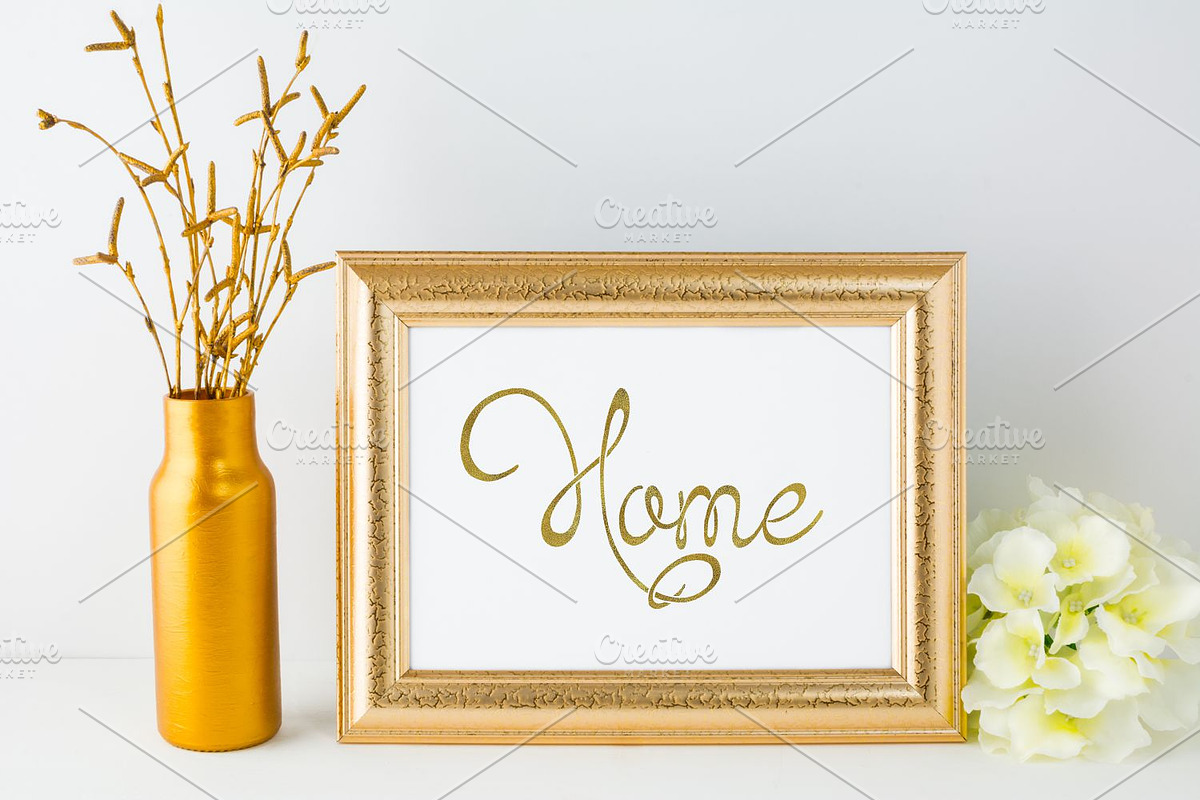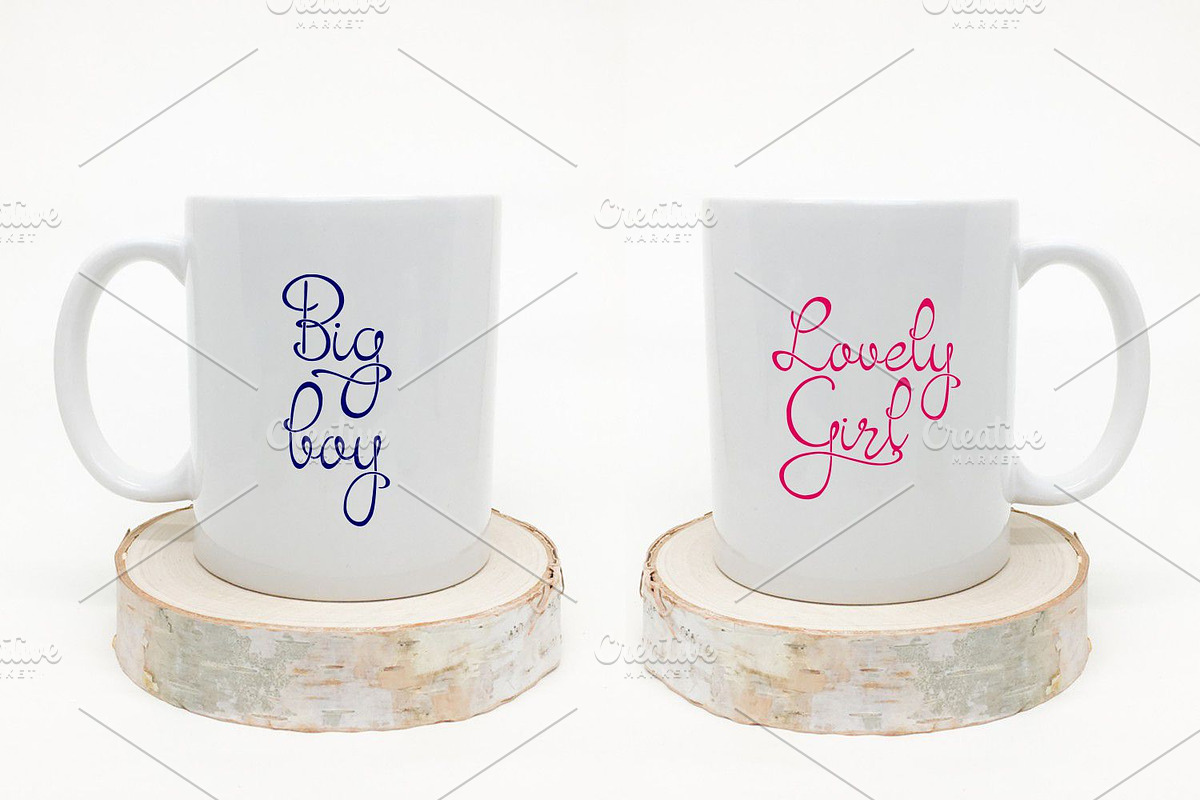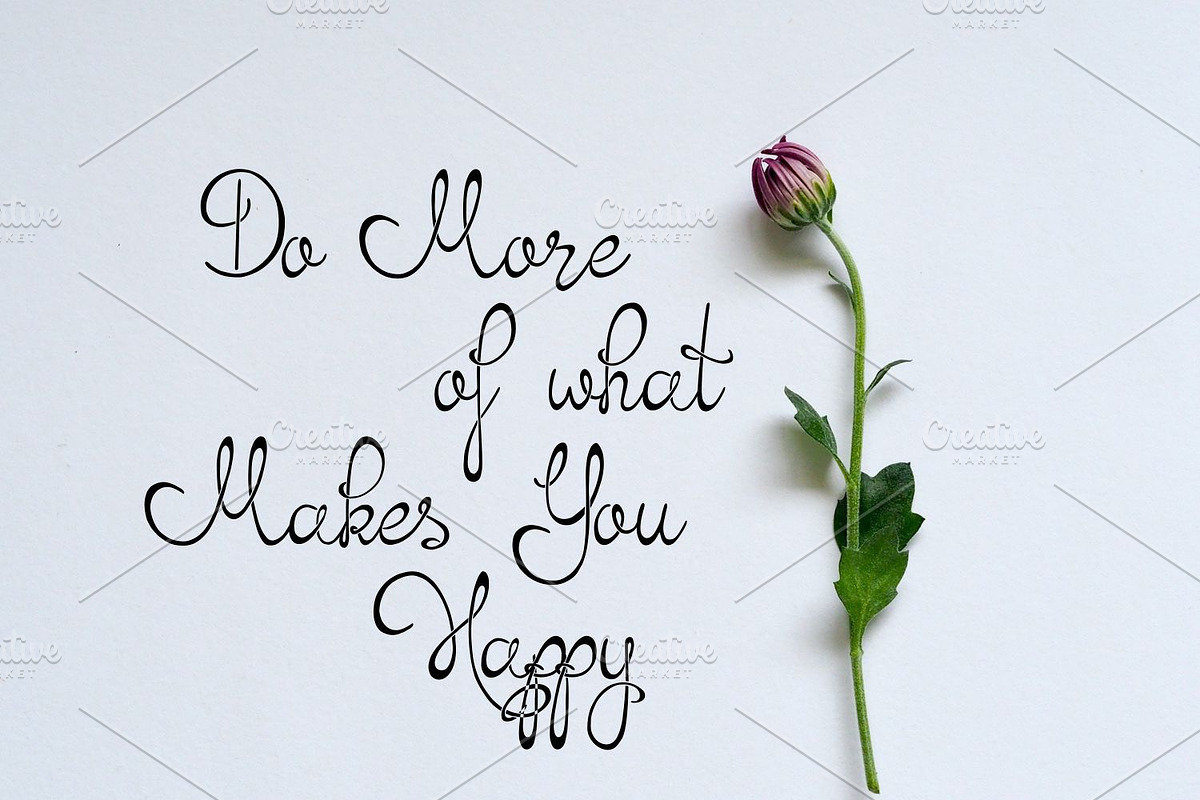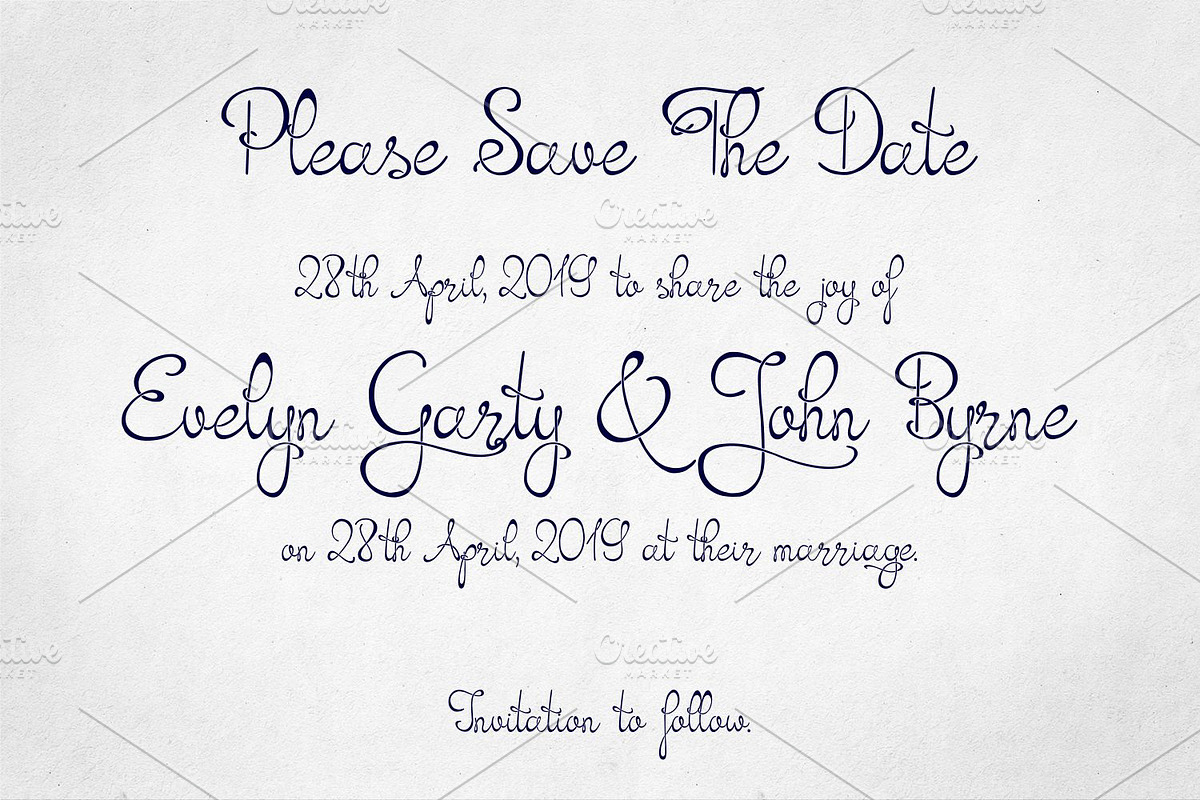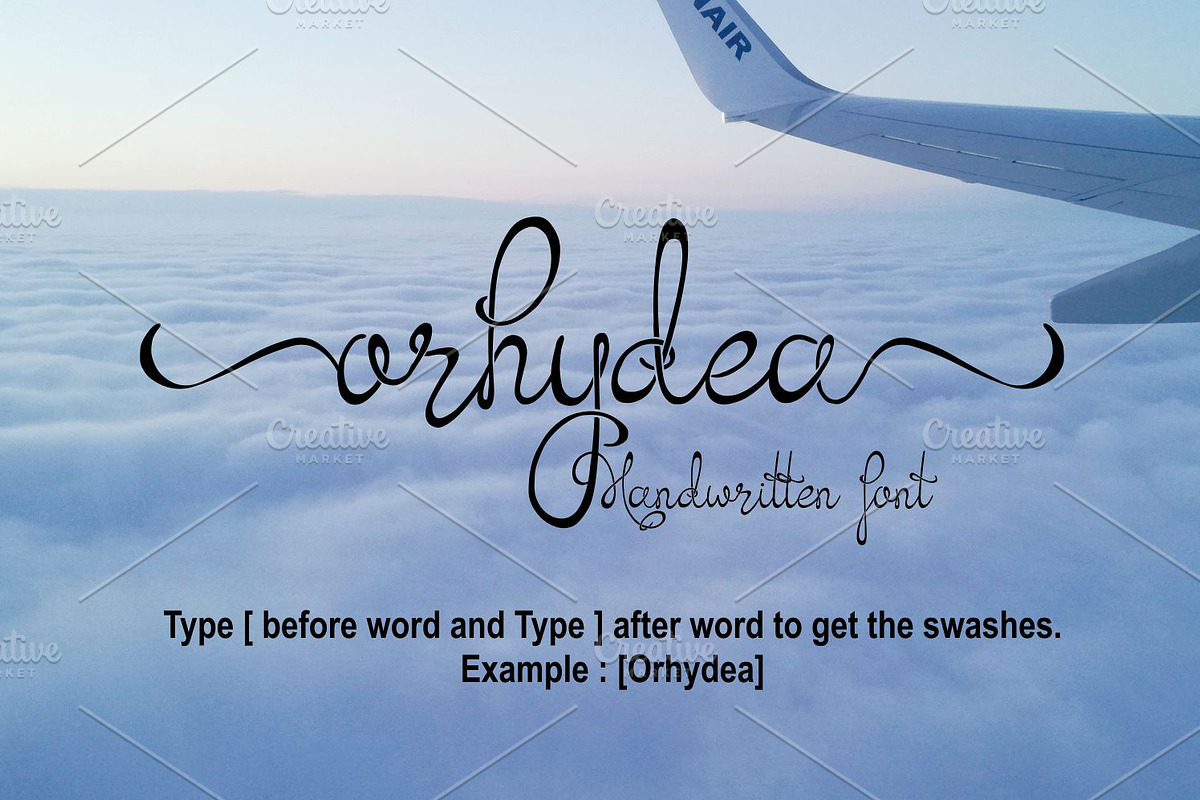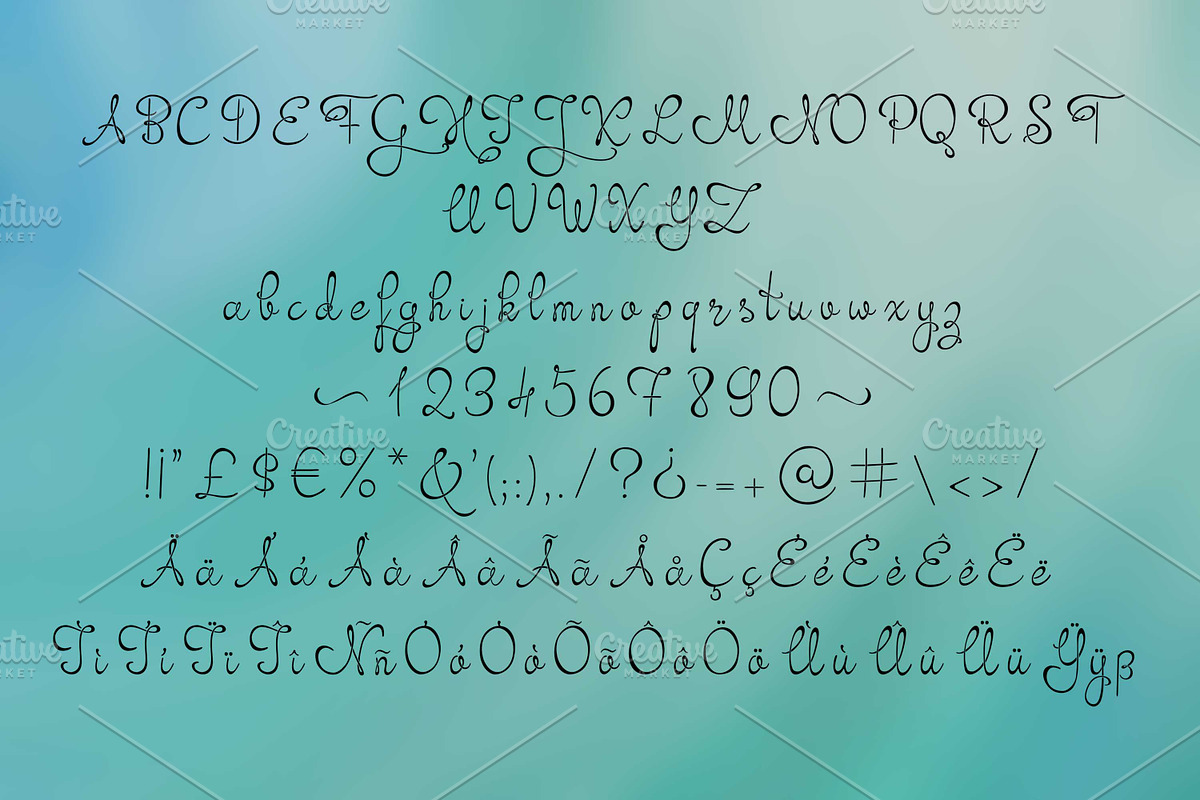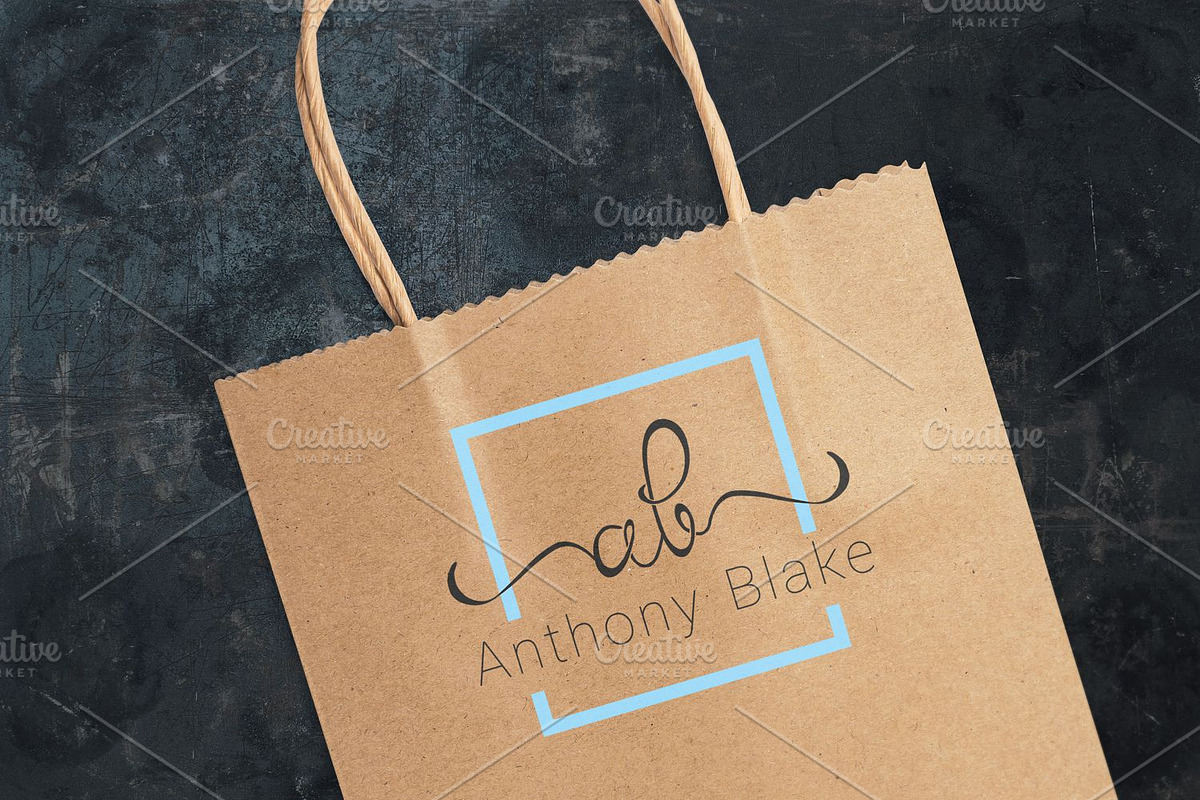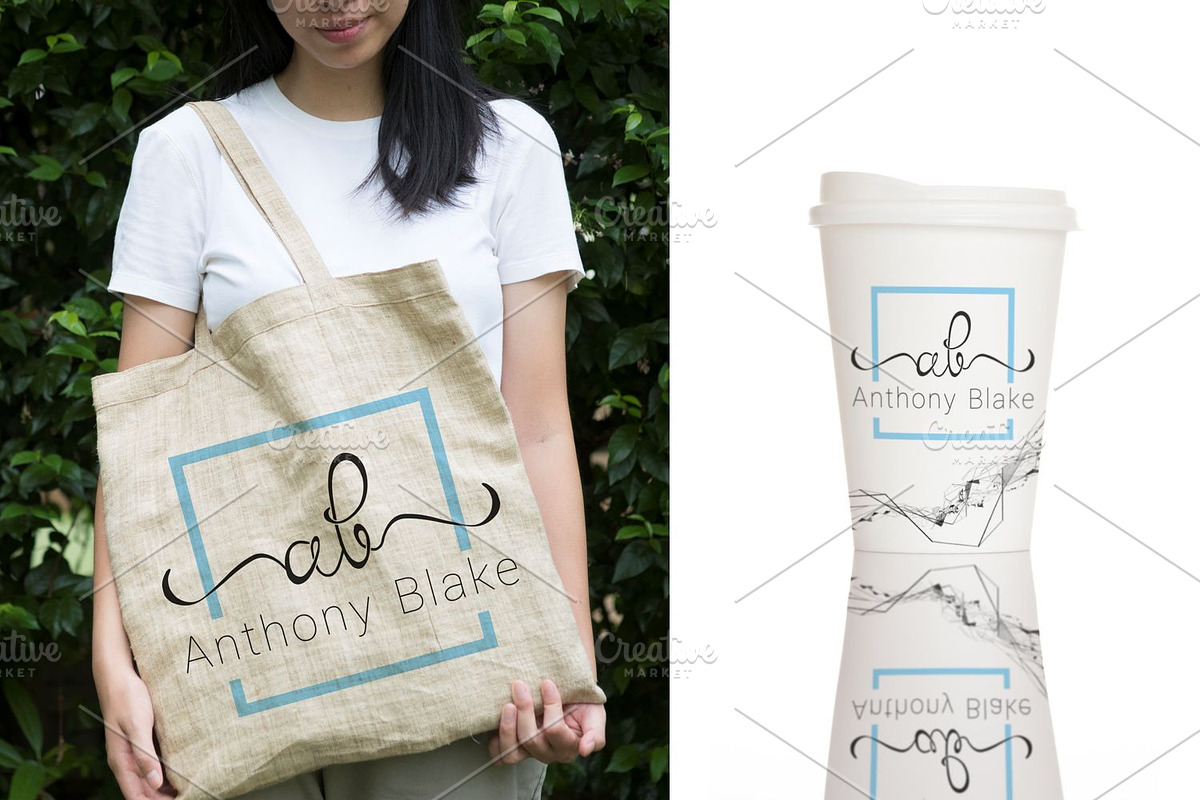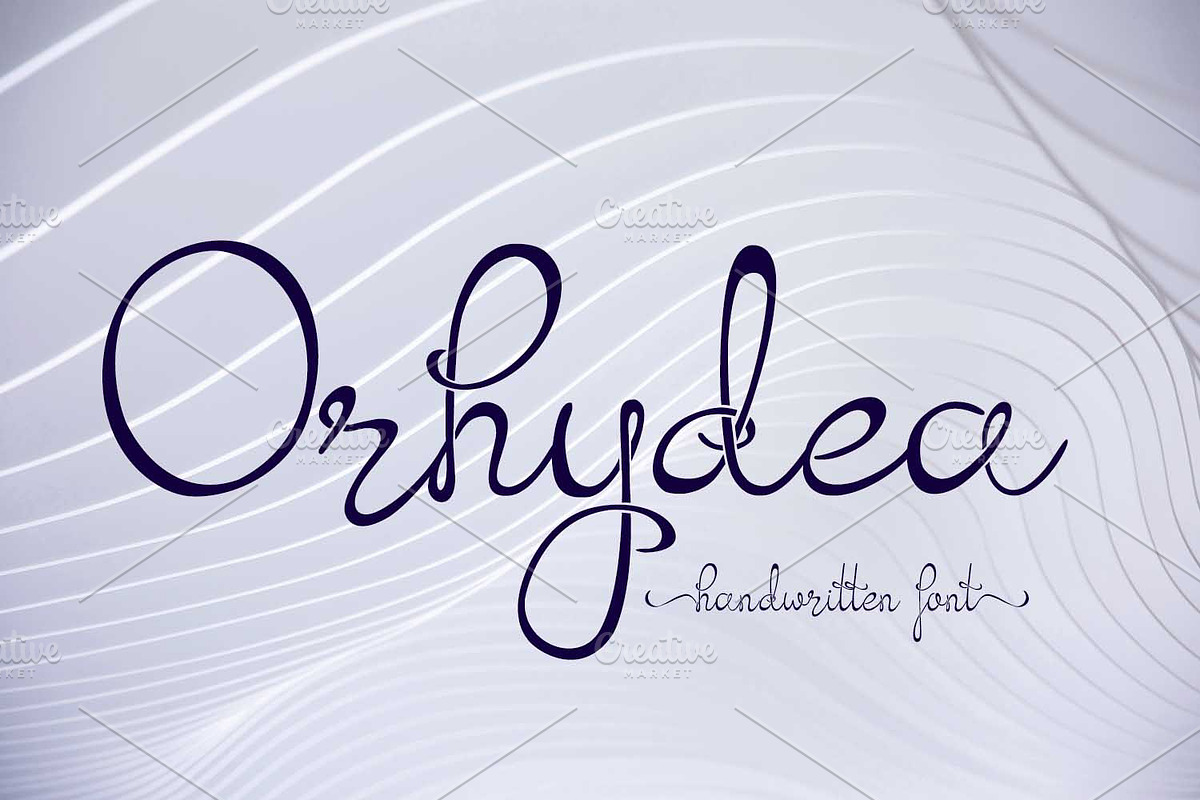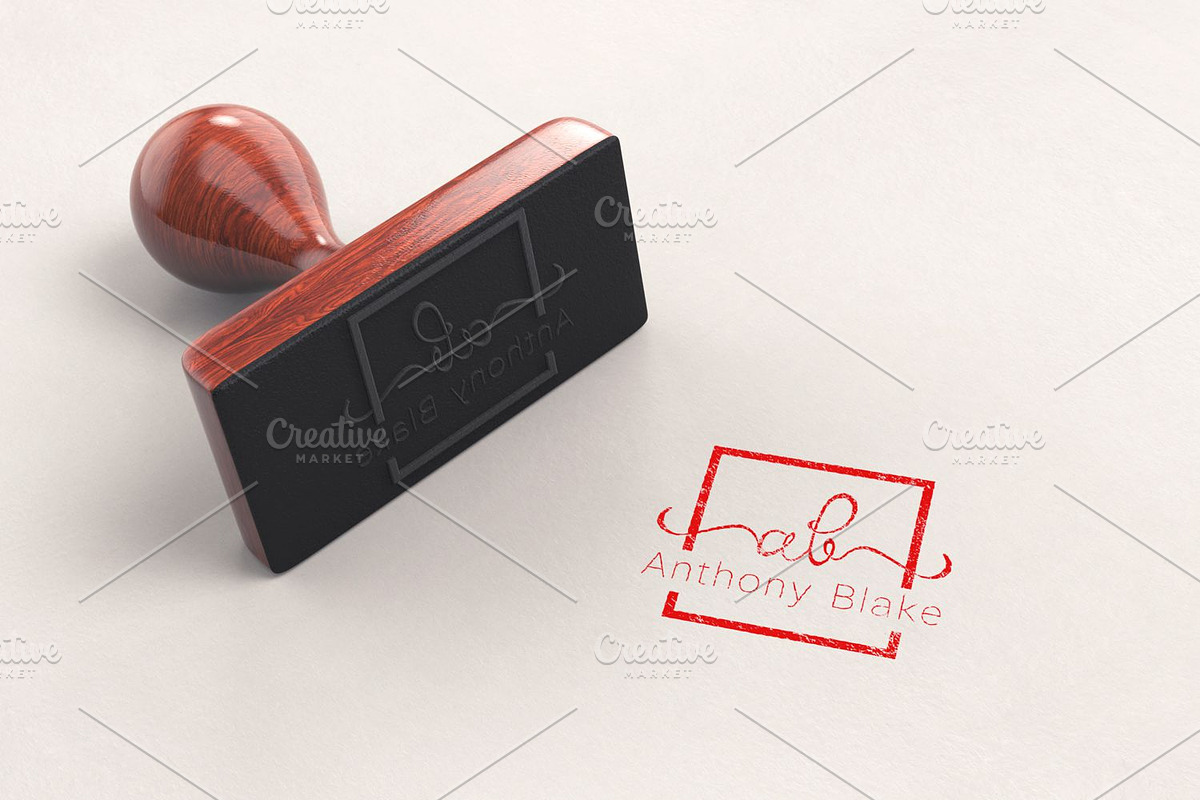
Orhydea
Orhydea is a beautiful handmade and a versatile script font. This swirly, decorative display font is a great way to add visual interest to your works.